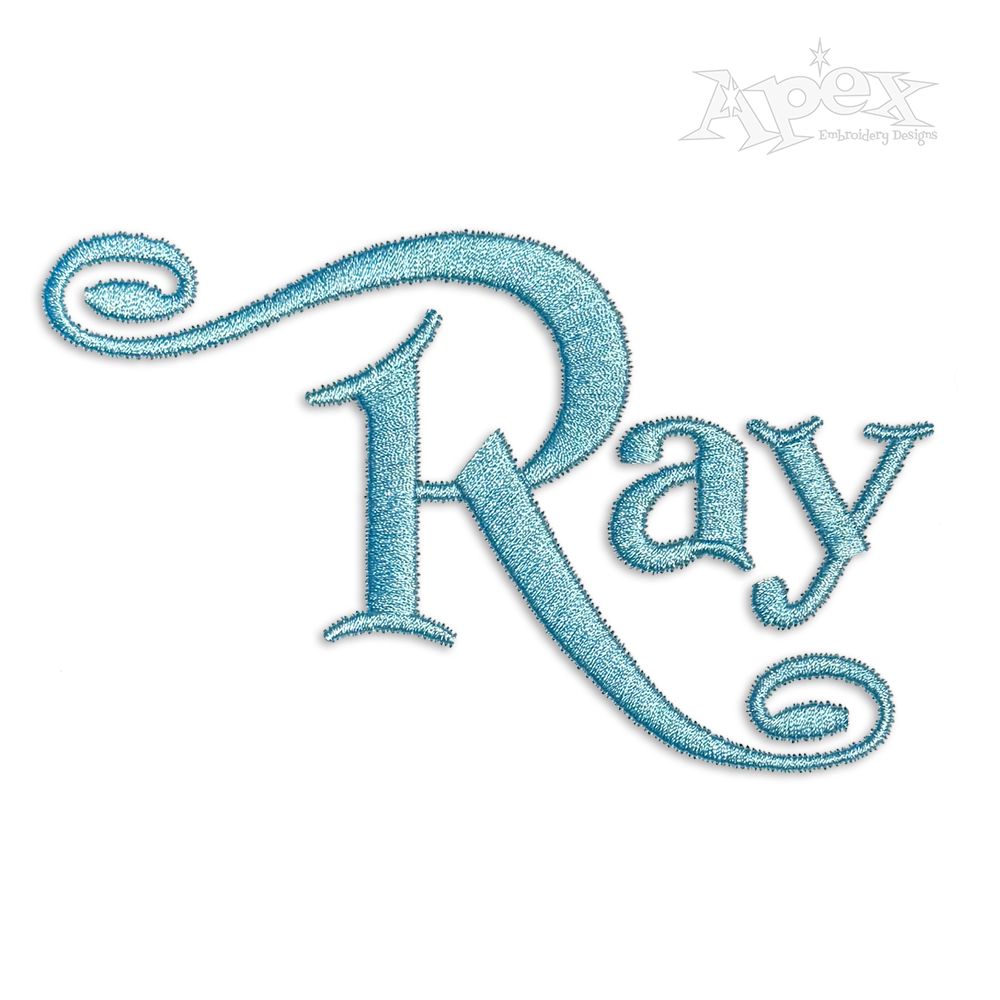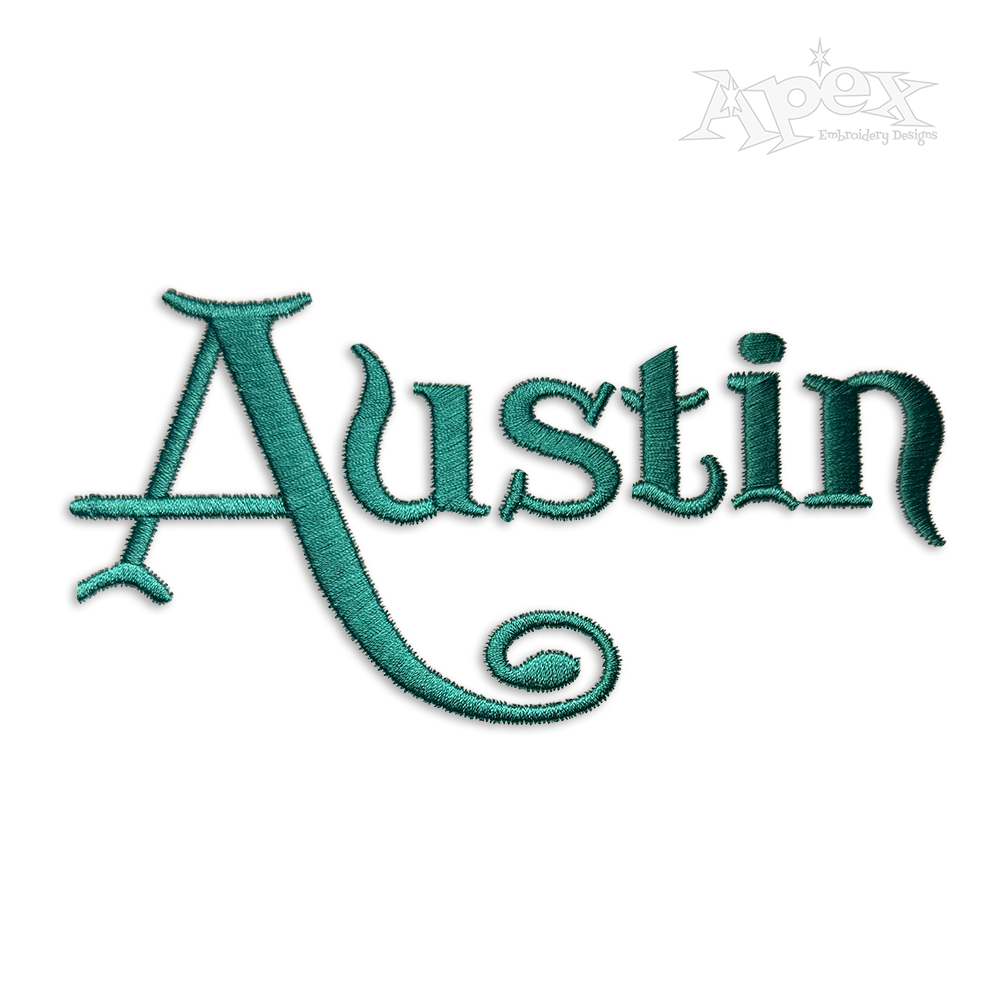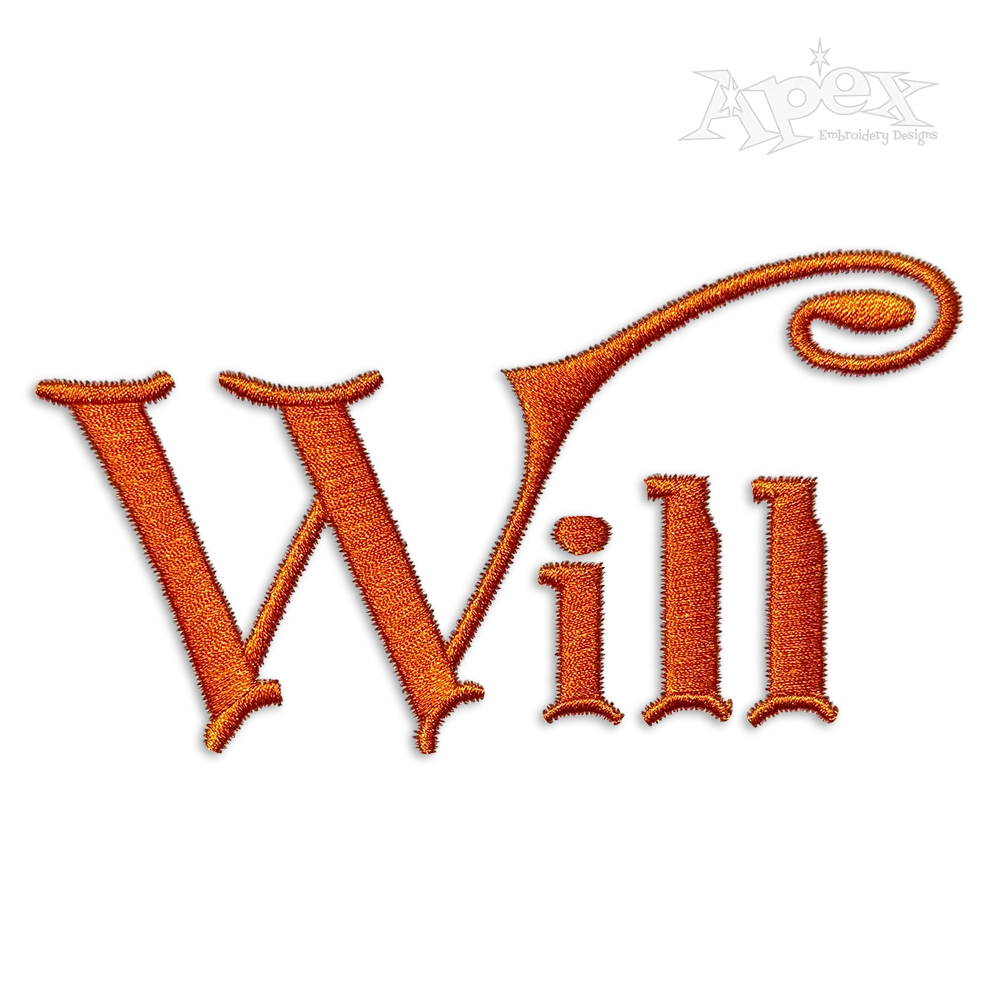
Tinker Bell Embroidery Font
When digitizing the Tinker Bell Embroidery Font, we wanted to capture that luminous, storybook enchantment—a typography dancing with kinetic charm, subtle flairs, and an unmistakable whimsical grace. Every glyph is crafted to leap off textured fabrics with spirited warmth, offering the perfect balance between lively fairytale energy and refined artisan embroidery. Whether adorning a child's bespoke keepsake or adding a splash of magical nostalgia to personalized gifting, this satin stitch alphabet brings a luminous, handcrafted personality to every stitch-out.
Project Ideas for Tinker Bell Embroidery Font
The animated, graceful personality of this font invites endless creative exploration across whimsical and family-centered projects:
- Heirloom Children's Keepsakes: Stitch radiant initials onto birth announcement pillows, pastel baby blankets, or quilted milestone keepsakes.
- Theme Park & Vacation Wear: Personalize denim jackets, sun hats, canvas backpacks, and matching family tees for magical resort getaways.
- Whimsical Table & Party Linens: Add festive, sparkling names to birthday runner hems, holiday gift bags, and celebratory tea-party napkins.
- Personalized Loungewear: Embroider cozy robes, plush slippers, and fleece hoodies with vibrant, animated script that sparkles with cheer.
- Everyday Canvas Totes: Transform sturdy canvas library bags and craft pouches with bold, joyful lettering that stands out with handcrafted flair.
The lively posture of the Tinker Bell letterforms shines when given intentional positioning on your textiles:
- Pocket & Left Chest: Using the 1.5-inch size, center the initial just above or directly across shirt and cardigan pockets for an upbeat, tasteful accent.
- Corner Diagonal Accents: Angle a child's single monogram 45 degrees into the lower corner of swaddle blankets, plush towels, or heirloom linens.
- Centered Bodice & Sweatshirts: The 2.0-inch or 2.5-inch sizes command attention when aligned across the center chest of pullovers, rompers, and knit sweaters.
- Tote & Backpack Flaps: Position prominent initials centrally on bag pockets or flap closures to create an instantly recognizable bespoke accessory.
Tinker Bell Embroidery Font Craft & Letterform Details
Digitizing a font with this level of spirited animation demands relentless attention to stitch direction and density transitions. Rather than relying on automated conversion, each stroke in the Tinker Bell Embroidery Font was manually sculpted with tailored stitch pathing. We engineered generous underlay structures to lift the top satin threads off the fabric grain, generating superior dimensional loft and rich light reflection.
Notice the playful taper of the stems and the delicate sweep of the terminals. Our digitizers calibrated the satin stitch angles along every curved contour to flow naturally around sharp bends, avoiding bunching or thread stress. The result is a clean, velvety finish that retains its crispness through wash and wear, rendering every initial with the effortless, breezy joy of pure fairytale charm.